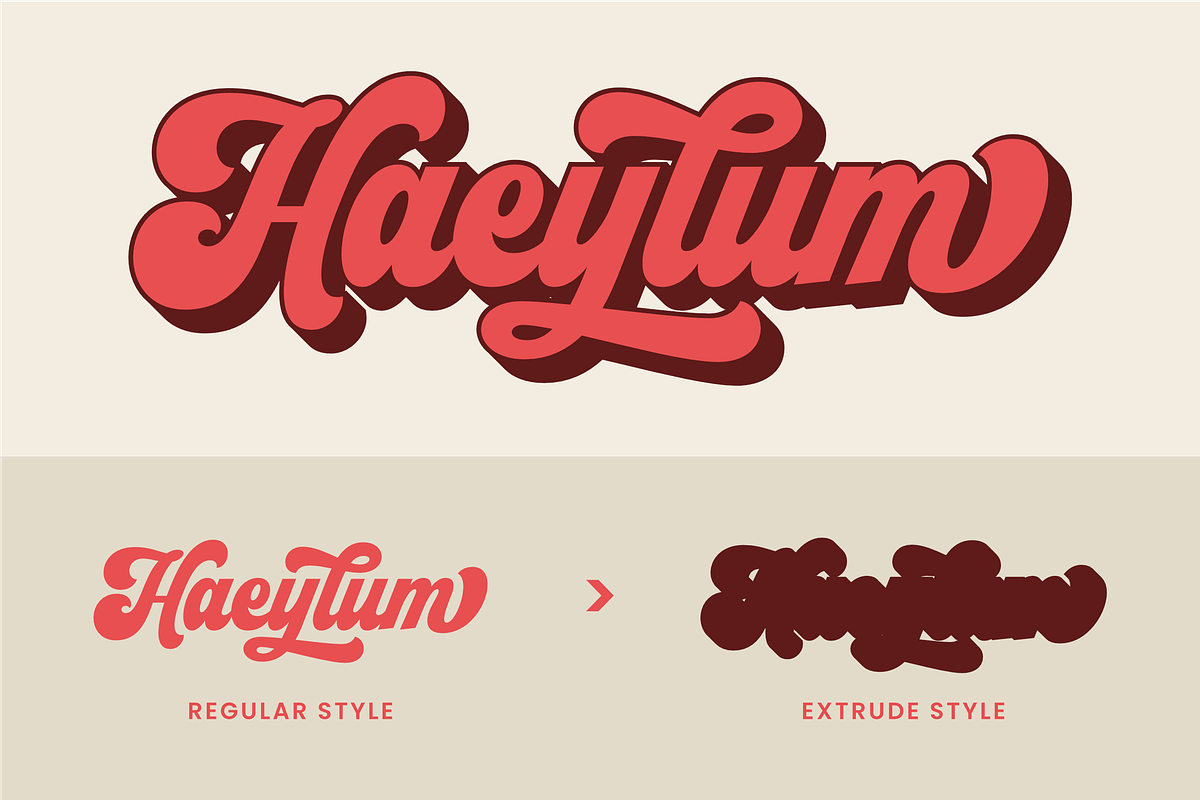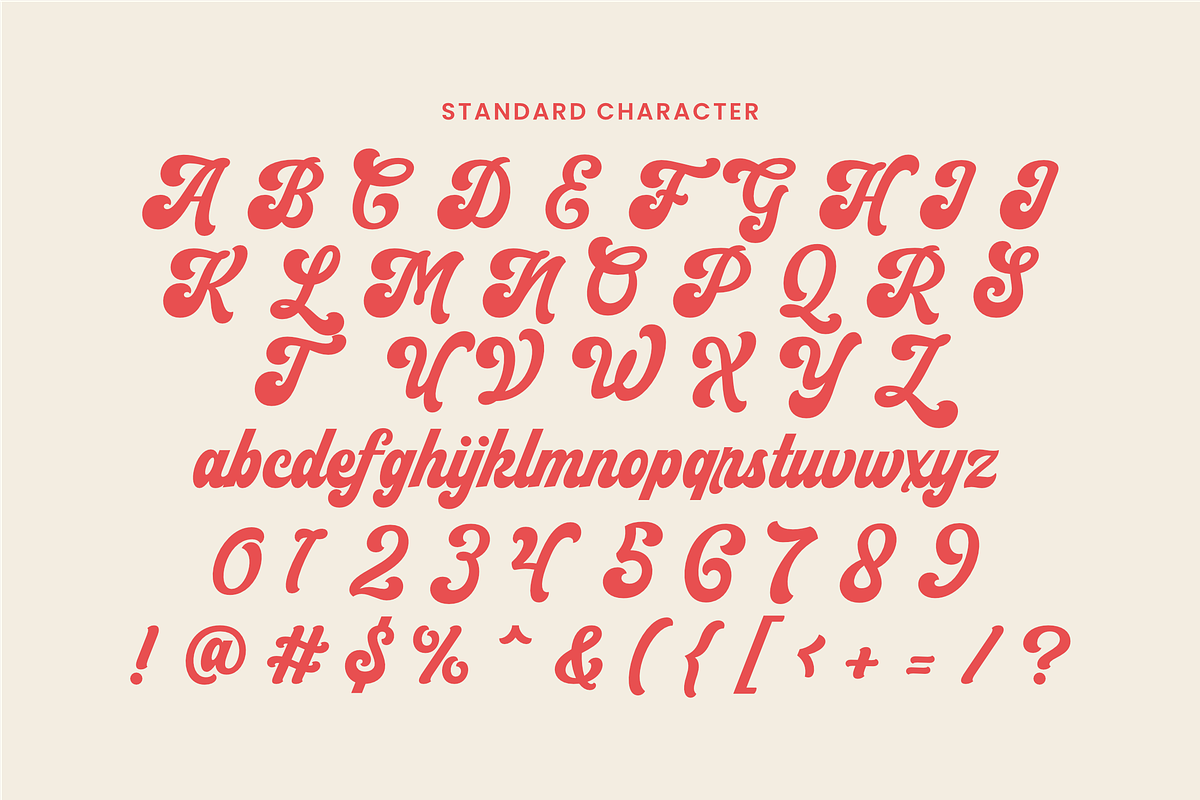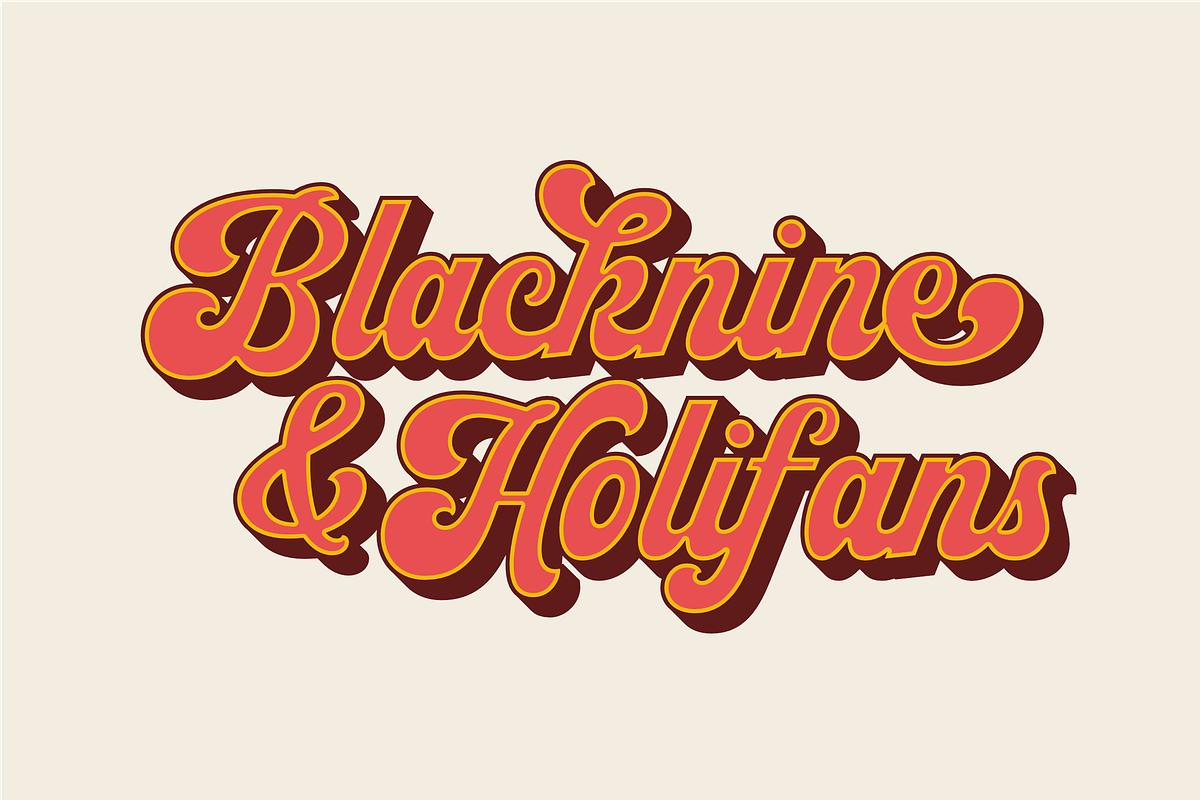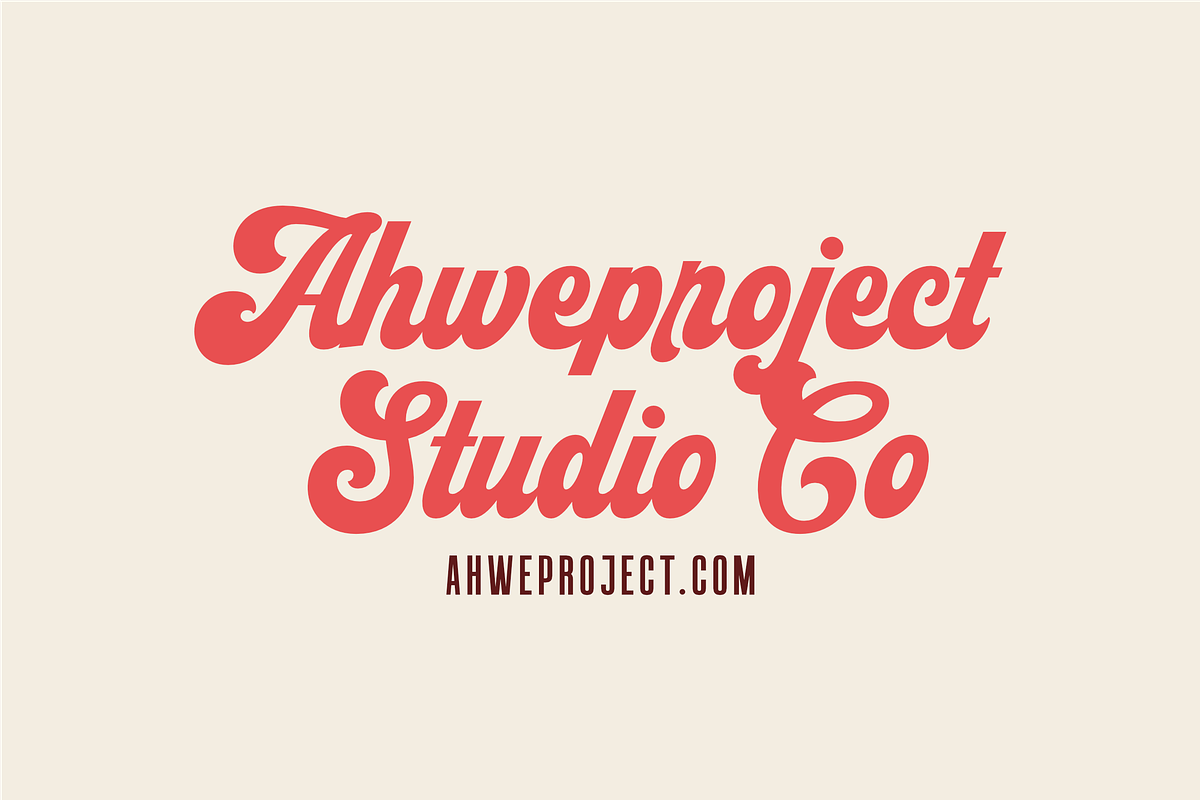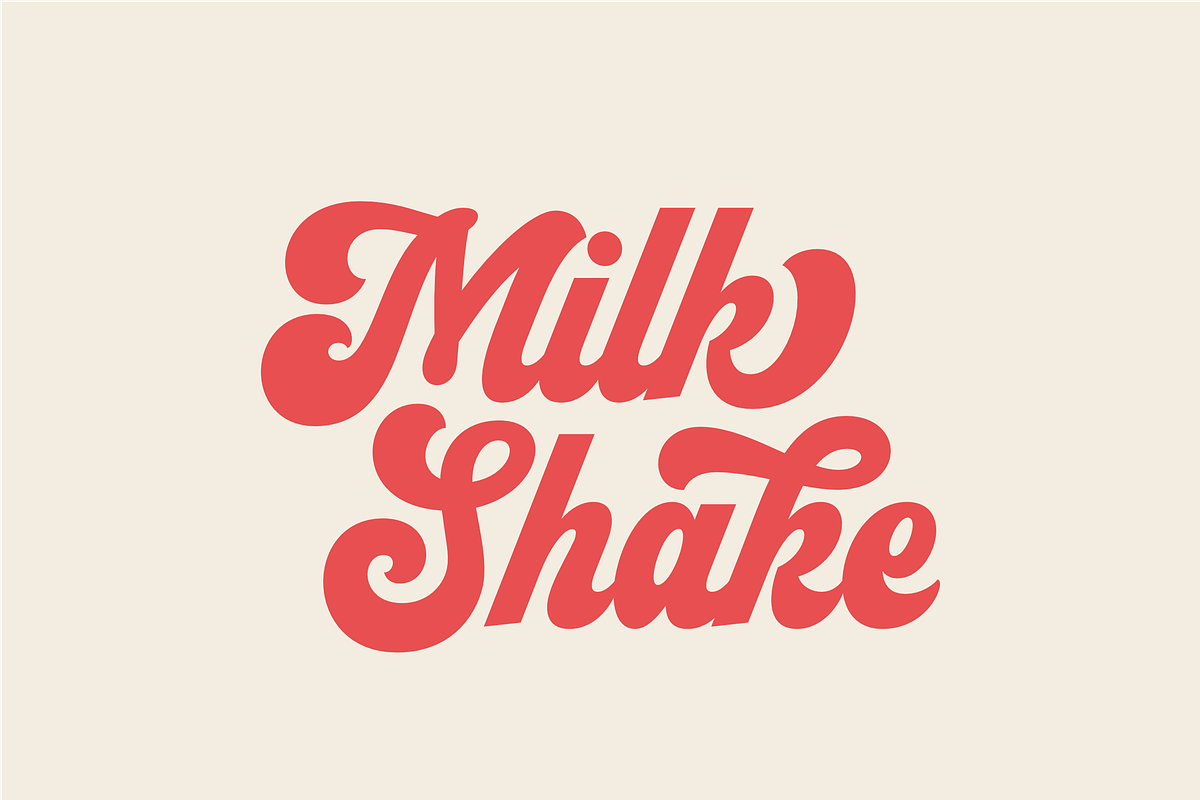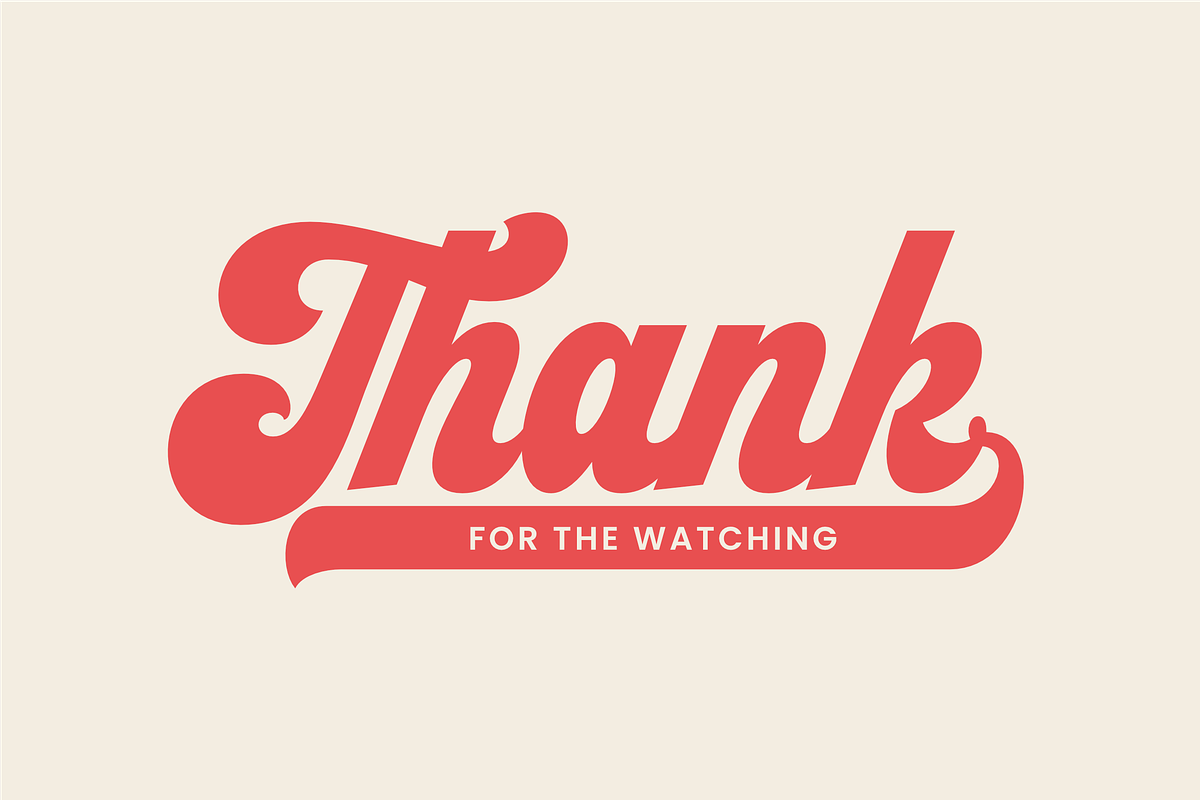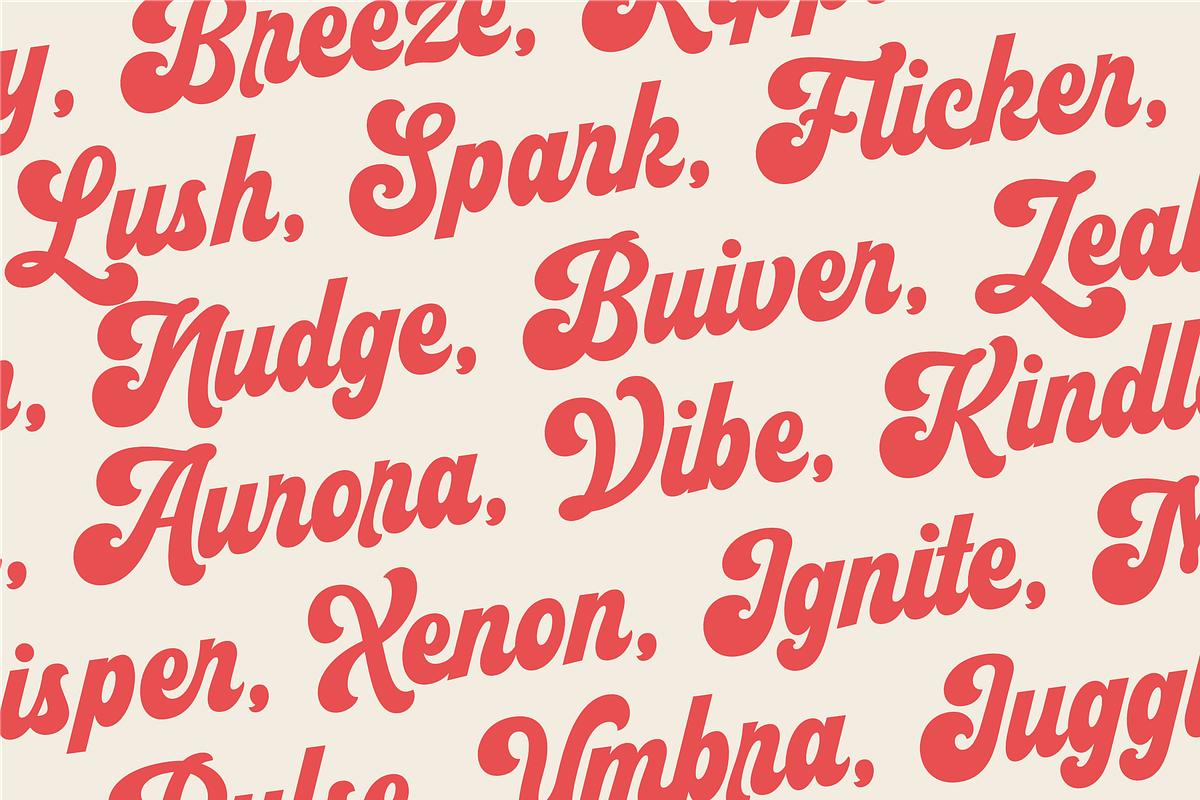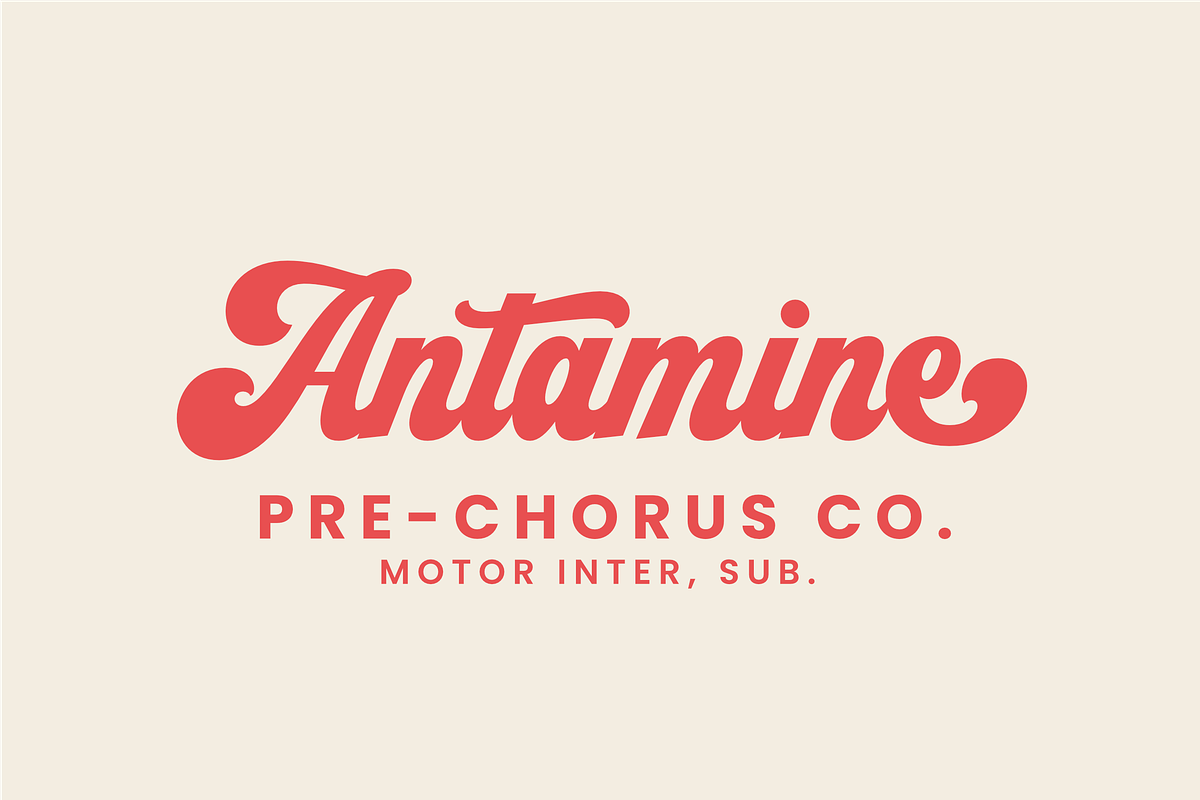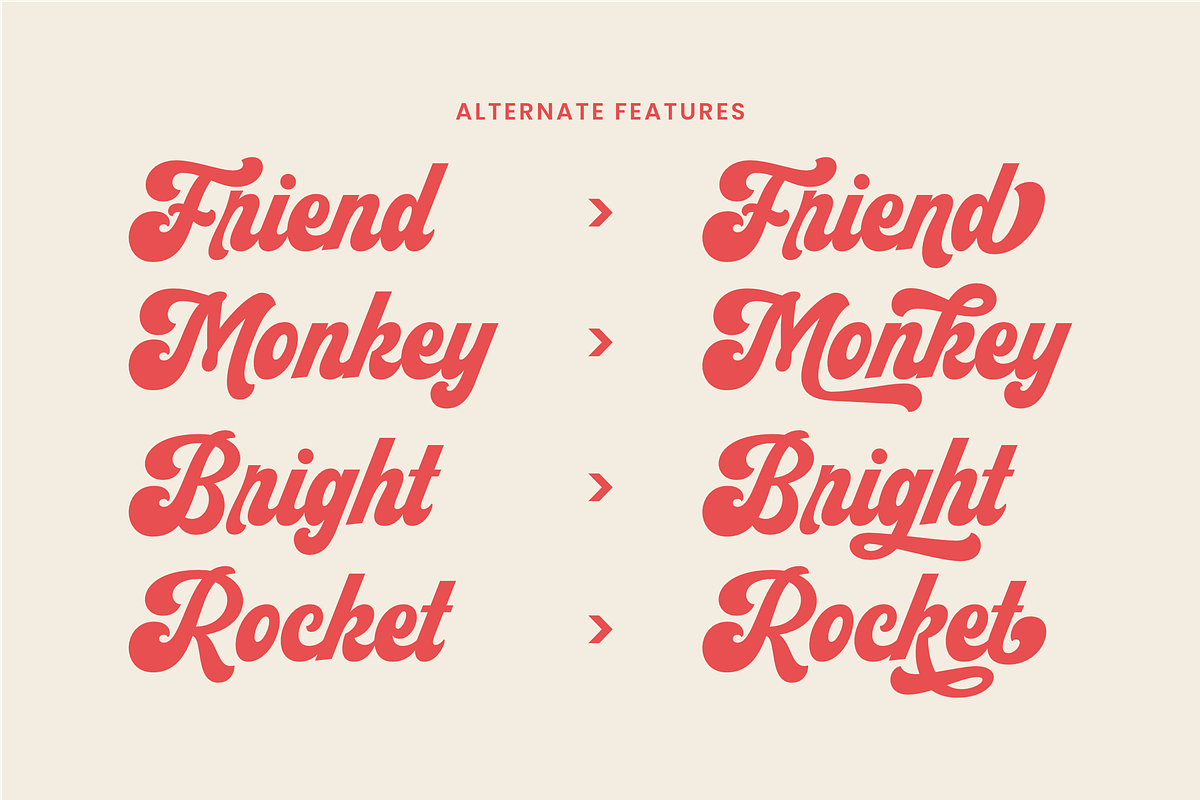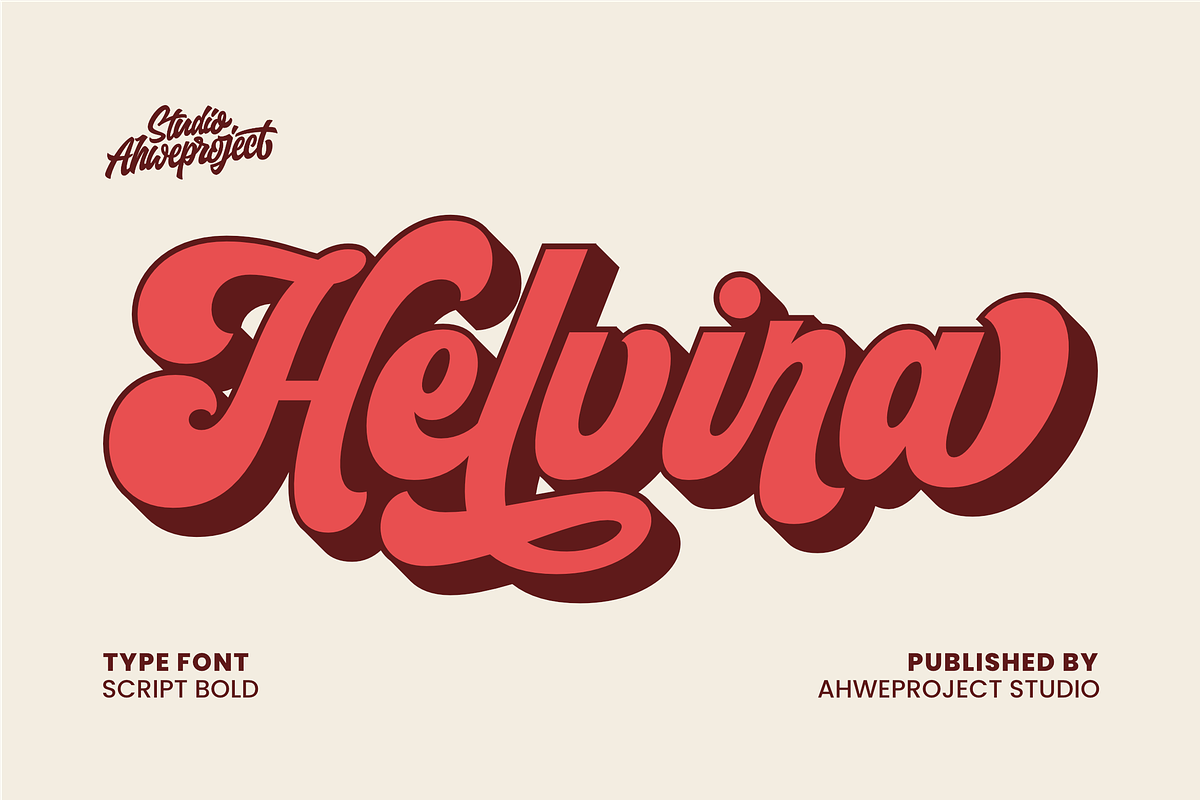
Helvira - Bold Script
Helvira is a bold script font full of charm, confidence, and retro spirit. Its thick strokes, flowing curves, and lively energy make it the perfect choice for eye-catching designs that demand attention.
From branding and logos to posters, packaging, merchandise, and social media graphics – Helvira brings a fun, nostalgic feel with a modern twist. The smooth connections and dynamic shapes give your text a handmade, personal touch while remaining bold and professional.
Designed with creativity in mind, Helvira includes stylistic alternates and ligatures, allowing you to experiment and create stunning typographic compositions with ease.
Add a bold statement to your next project with Helvira – where script style meets retro soul.